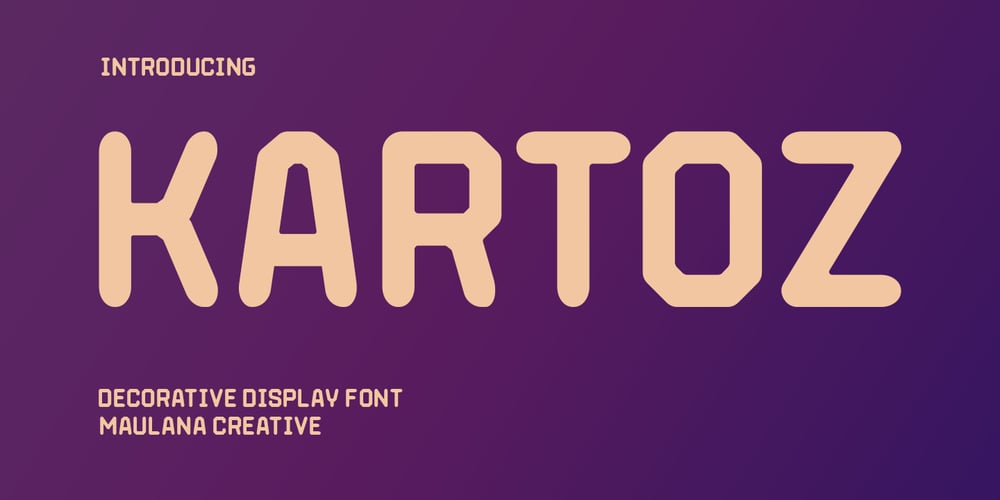
MC Kartoz Font Family was designed by Gilang Maulana and published by Maulana Creative. MC Kartoz contains 1 styles and family package options. Kartoz is a modern Tech Decorative Display font. Medium stroke, fun character with a bit of ligatures and alternates. To give you an extra creative work. Kartoz font support multilingual more than 100+ language. This font is good for logo design, Social media, Movie Titles, Books Titles, a short text even a long text letter and good for your secondary text font with script or serif. Make a stunning work with Kartoz font. Caps only Fonts.Cheers, Maulana Creative